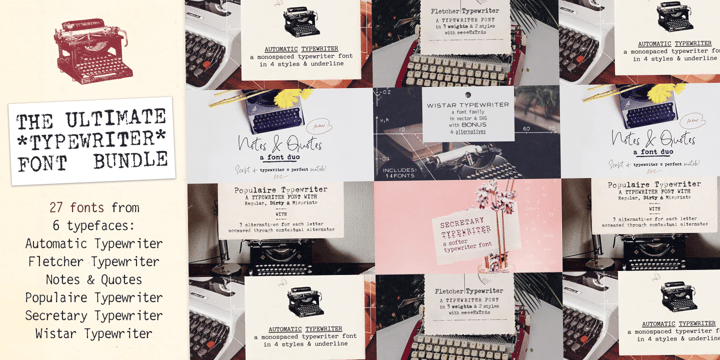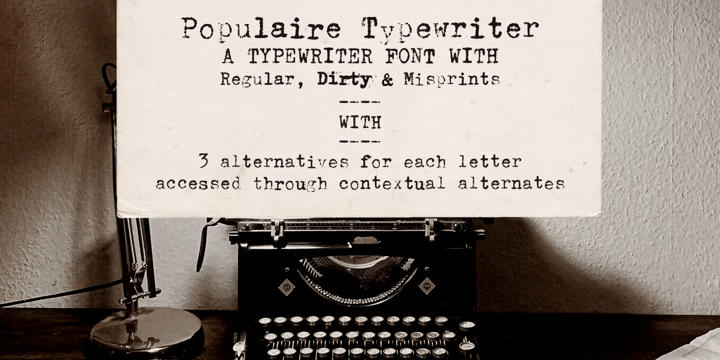
The Ultimate Typewriter Bundle Part 1
This bundle includes all types of typewriter fonts: from sans to serif, from very legible to grungy, from hand-drawn to realistic. They include a bunch of Open Type features, such as contextual alternates and ligatures, that make them super fun to use and realistic.
Use this set in any designs that needs a vintage touch. Use it in long or short texts, in digital collages, branding and packaging, social media posts, logotypes, etc.